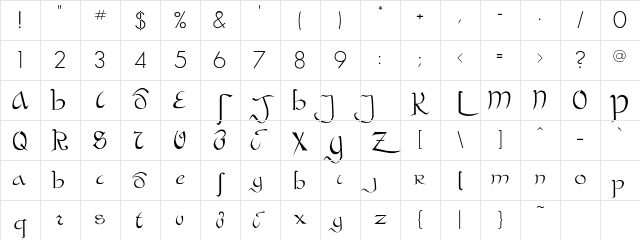
Clinton Regular
Design Context for Clinton
Clinton is a composed and adaptable typeface that performs quietly and consistently across a wide range of design contexts.